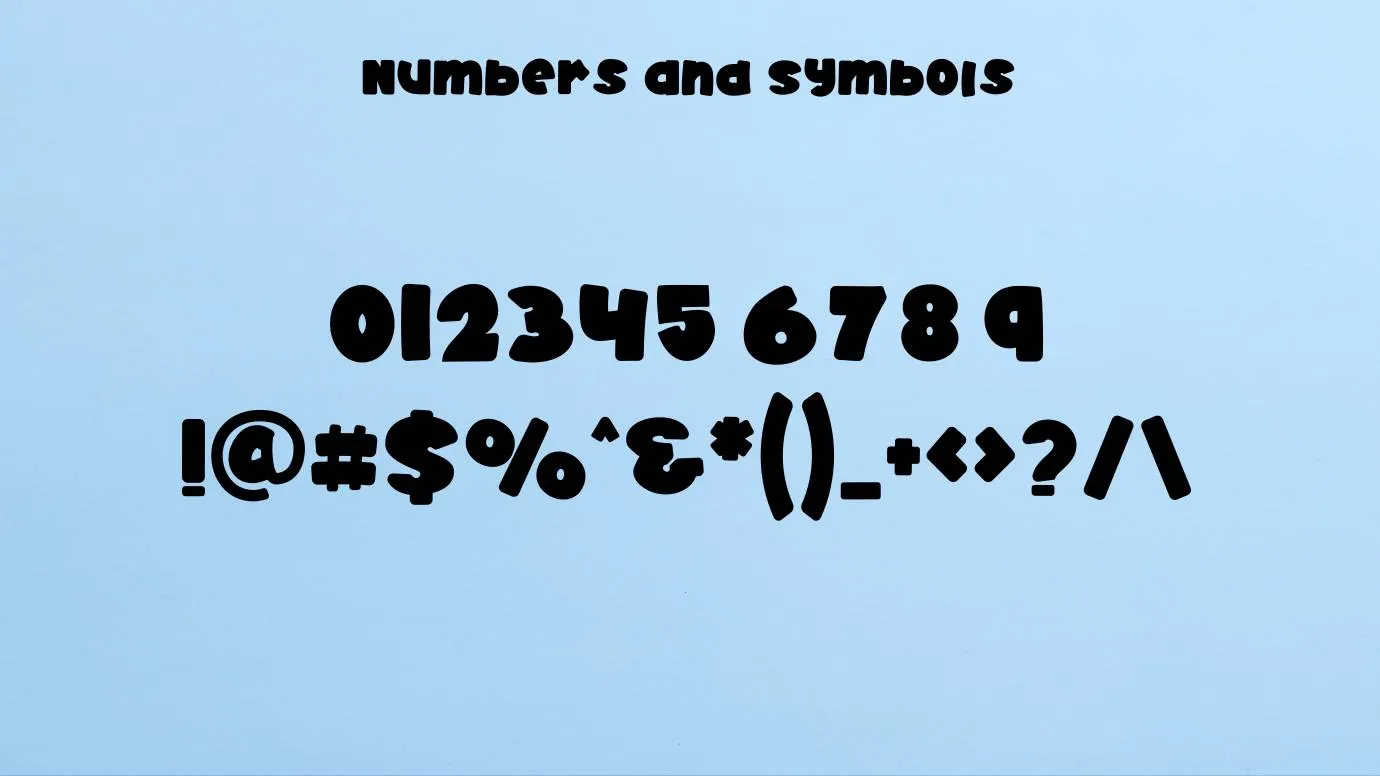
Letterena Studios designed this fancy style you can use this font to enhance the appeal of your work. Happy Donuts Font has neat, clean, and strong character shapes that make it perfect to attract the viewer and gives you quality content.
A modern, clean, and professional appearance can be seen in the style. Its free version is available here. You’ll be able to make your headlines stand out by adding eye-catching glyphs. In this stunning typeface, you can use both lowercase and uppercase letters.
You can use its generator tool to create unique designs. Pair it with another font to get the best outcomes. The innovative features of this font make it ideal and excellent for your projects. You can also utilize this font to make a good combination pair with brady bunch font.
This typeface works best for creating book covers. With this font easily draw designs to use on invitations/ marriage cards. This typography is frequently used by developers for creating tattoo and logo designs. It is an ideal option to design unique projects.
This style has uppercase letters, numerals, and lowercase, it features unique characters. It is ideal for a variety of design applications. This typeface has a distinctive textural style, so the letter works well for postcard designs. It features 2048 digits per em and unique glyphs.
Happy Donuts Font View
Happy Donuts Font Numbers and Symbols
Important Tips to Utilize the Happy Donuts Font
This font style can be used to create popular designs to attract the user. This typeface is cool and smooth, ideal for HD visuals and video design.
You may use this typeface to create the symbol you want on your clothing. It can be applied to any project. The typeface is especially well-matched for tasks involving print and online design. Additionally, this website is a fantastic option for any advertising and branding projects.
You can use this typeface to create commercials, presentations, packaging, posters, website templates, artwork, business cards, brochure layouts, T-shirt designs, logo designs, social media posts, and much more.
With this typeface, you can create a nice professional logo, heading, or branding. A variety of designs can be created with this typeface, including logos, headlines, and web designs.
Numerous places, such as fashion magazines, books, newspapers, and company branding, would benefit from the use of this typeface. This outstanding typeface can be used to create pamphlet layouts, wall painting designs, and logo designs. The ideal use of this extraordinary typeface is in headings.
What is Happy Donuts font style?
This typeface is a fancy style you can use this font to enhance the appeal of your work. It has neat, clean, and strong character shapes
Why Happy Donuts Font is the best font?
This typeface works best for creating book covers. With this font easily draw designs to use on invitations/ marriage cards.
Who designed the Happy Donuts font?
Letterena Studios designed this fancy style you can use this font to enhance the appeal of your work. It is perfect for attracting the viewer and gives you quality content.